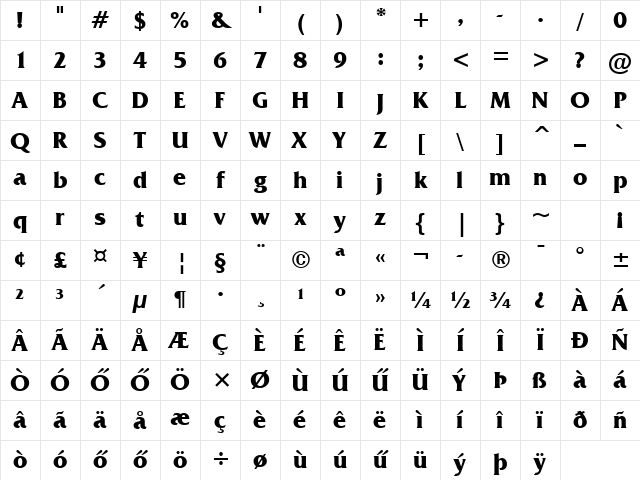
H_FRIZQB Regular
Complete H_FRIZQB Regular glyph index. Displaying only characters natively supported by H_FRIZQB Regular font.
Design Context for H_FRIZQB
H_FRIZQB is a composed and adaptable typeface that performs quietly and consistently across a wide range of design contexts.